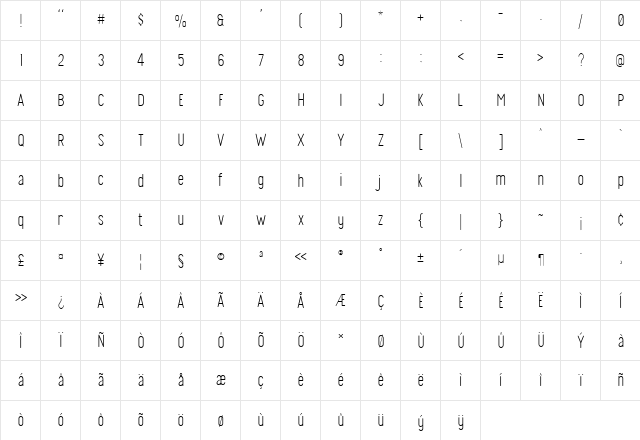
Finland Rounded Thin Regular Font Preview
Design Context for Finland Rounded Thin Typeface
Finland Rounded Thin softens its letterforms with rounded terminals, giving it an approachable, friendly quality that works well in consumer-facing and digital contexts. The delicate stroke weight brings airiness and refinement to layouts.
Well-suited to UI design, mobile interfaces, and any brand that wants approachability without sacrificing clarity.
Font Pairing: Pairs well with a rounded or humanist sans for body copy, maintaining the friendly tone without relying on Finland Rounded Thin to carry extended reading.
Pro Tip: Use Finland Rounded Thin for UI elements, app interfaces, and anywhere a friendly, approachable tone needs to be maintained without sacrificing clarity.